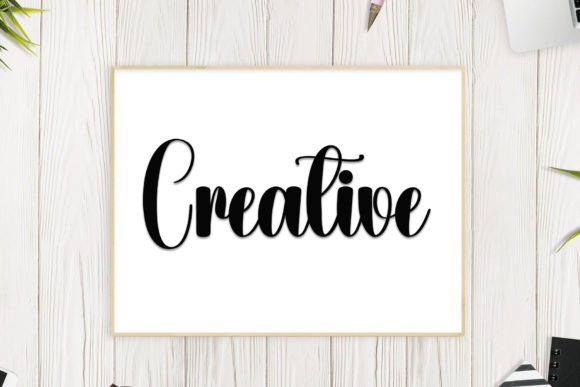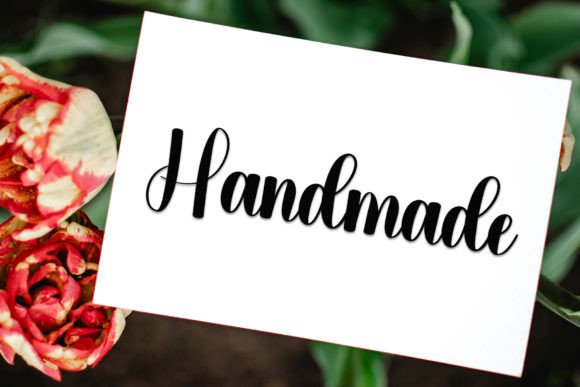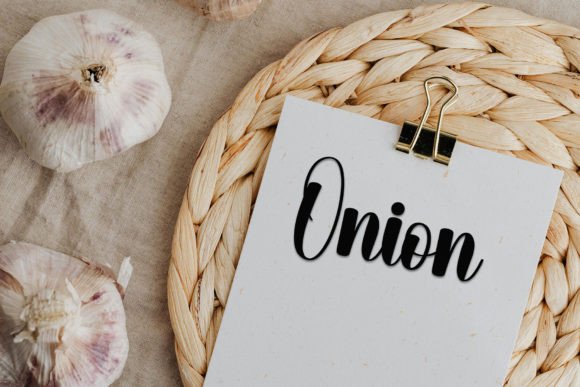
Barbie Birthday Font
Barbie Birthday is a trendy handwritten font with a contemporary atmosphere and impeccable form, inspired by timeless classic calligraphy. It will add elegance and class to any of your design projects.